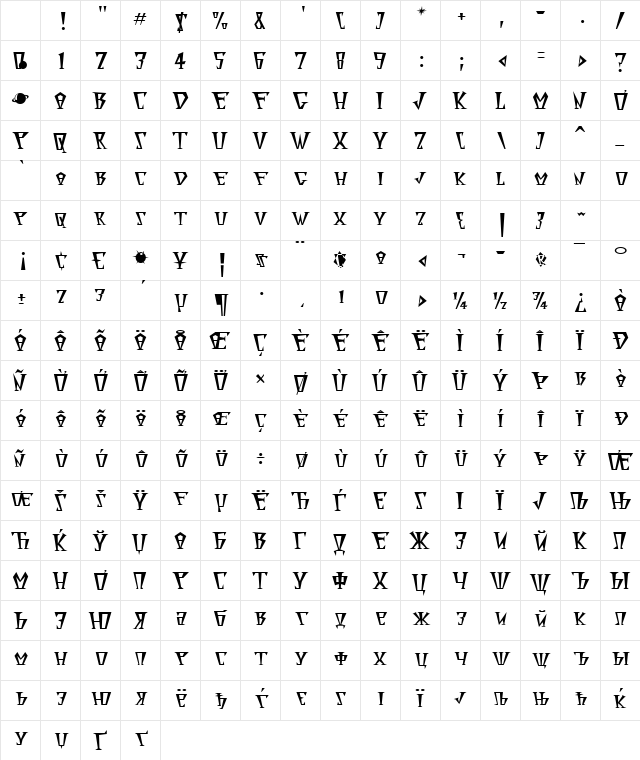
Complete Surfinta Mars Regular glyph index. Displaying only characters natively supported by Surfinta Mars Regular font.
Surfinta Mars is a composed and adaptable typeface that performs quietly and consistently across a wide range of design contexts.